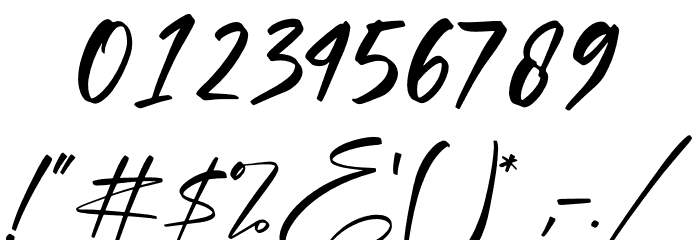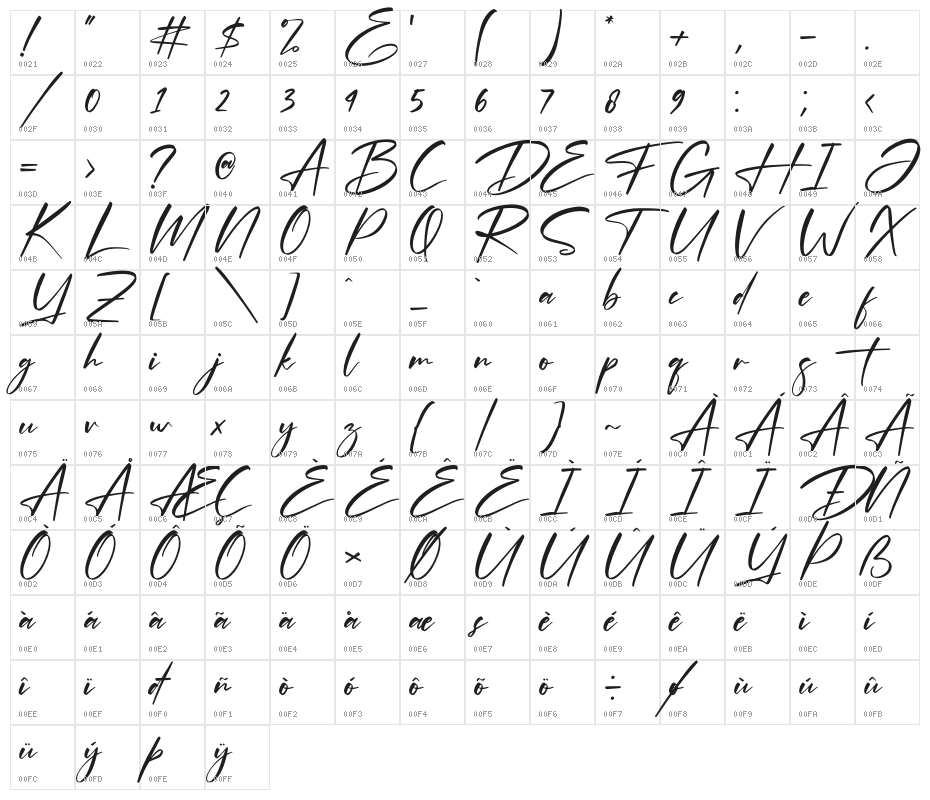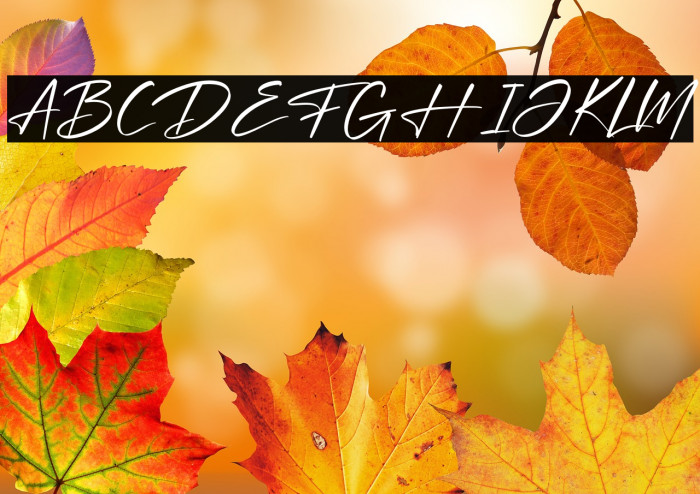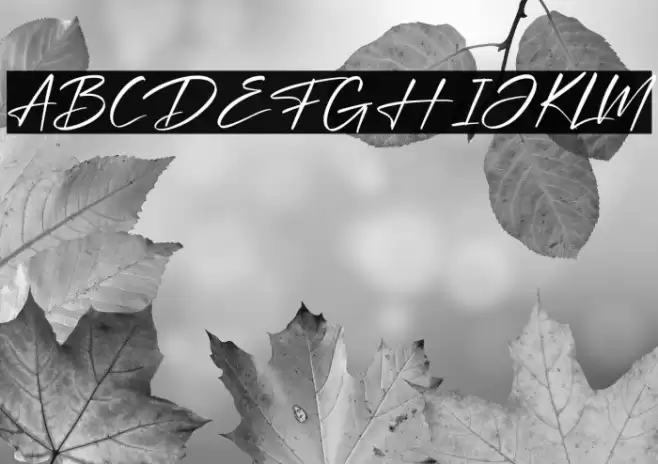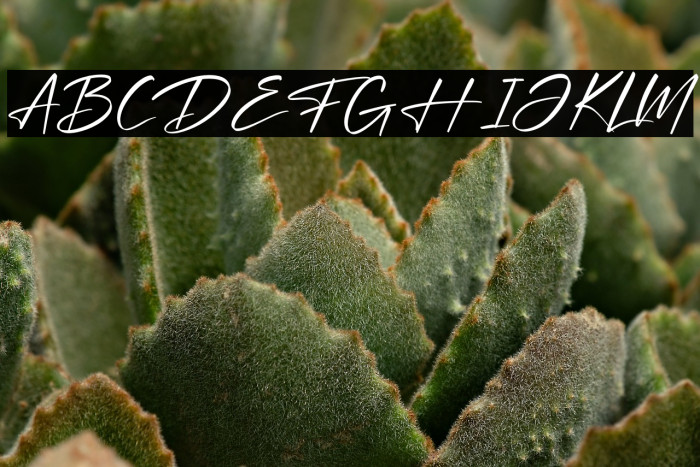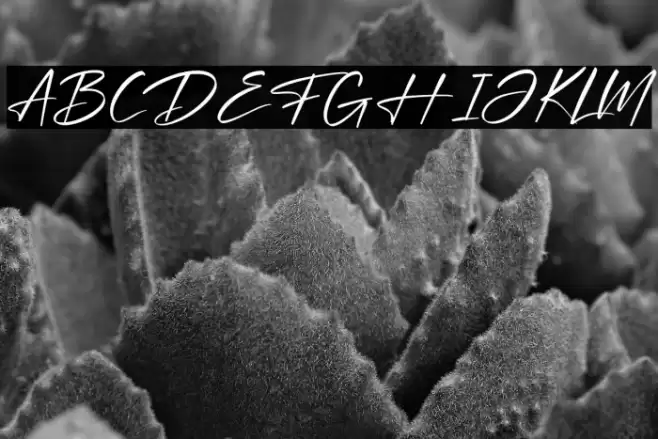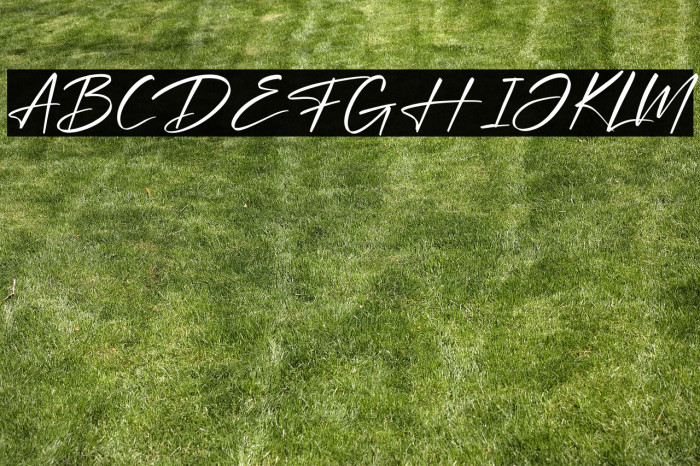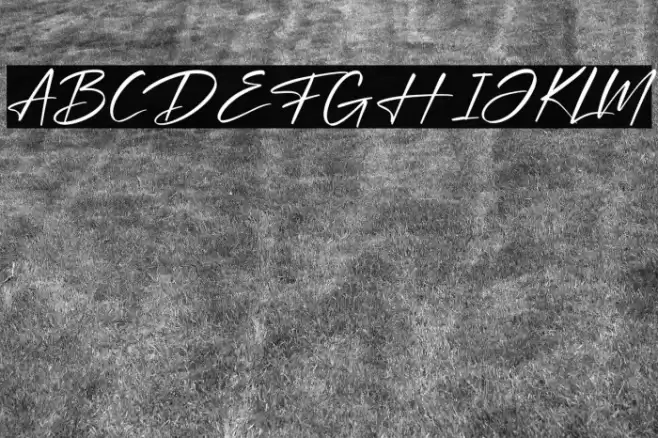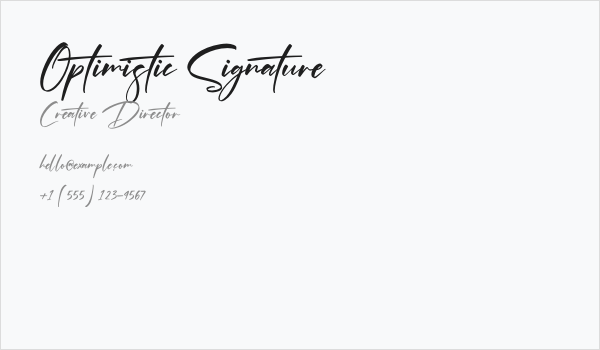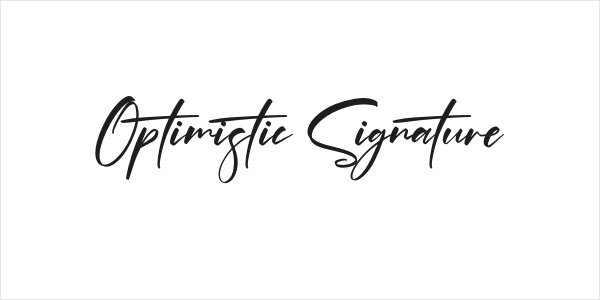
Optimistic Signature Font
Optimistic Signature Description
This font exudes a dynamic and expressive style, characterized by its flowing, cursive script that mimics a handwritten signature. The uppercase letters are elegantly elongated with a slight slant, adding a sense of movement and fluidity. The lowercase letters maintain a consistent rhythm, with smooth curves and connections that enhance the overall cohesiveness. Numbers and special characters are crafted with the same attention to detail, ensuring versatility across various applications. The font's bold strokes and high contrast between thick and thin lines contribute to its striking appearance, making it ideal for projects that require a personal touch or a sense of sophistication.
| Proposed Projects | Ideal for branding, invitations, logos, and any design requiring a personal, elegant touch. |